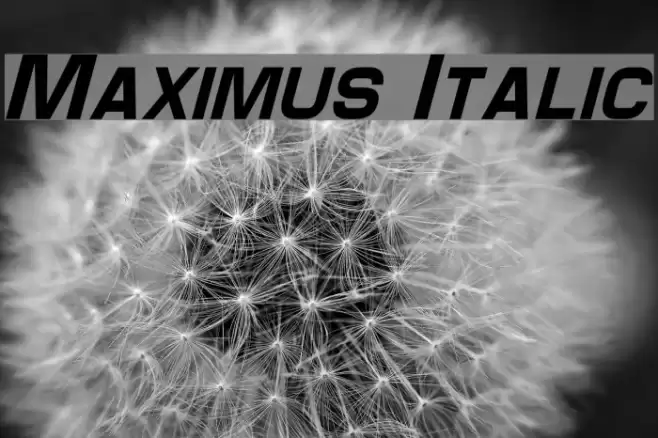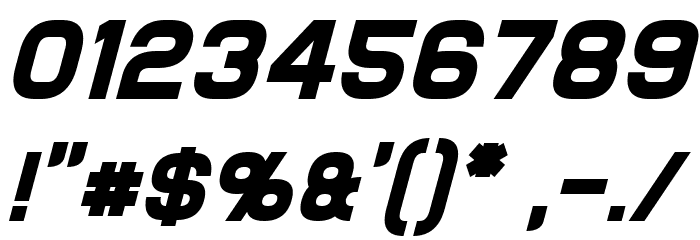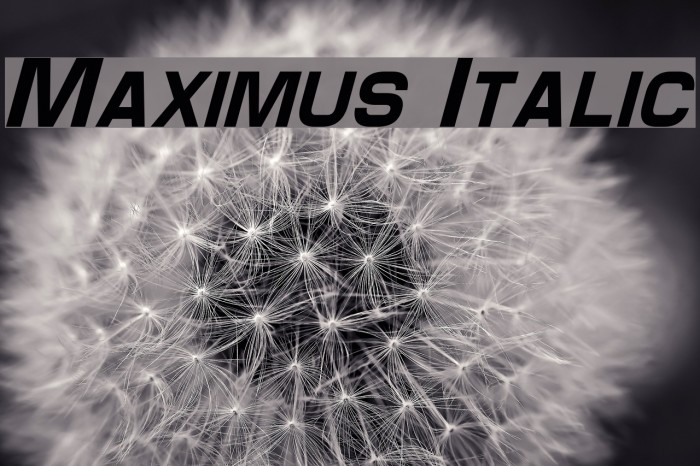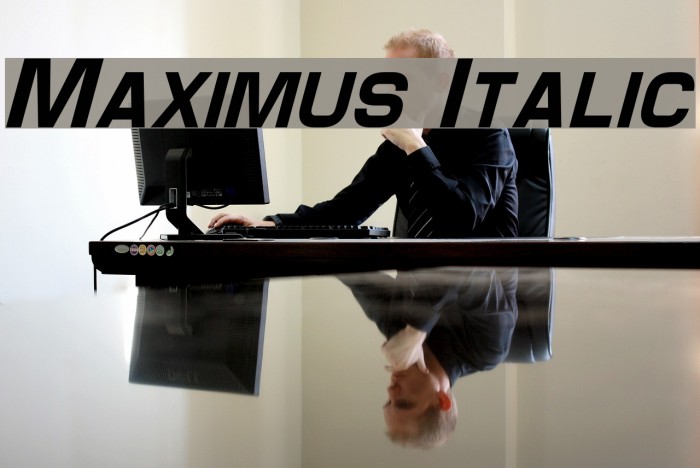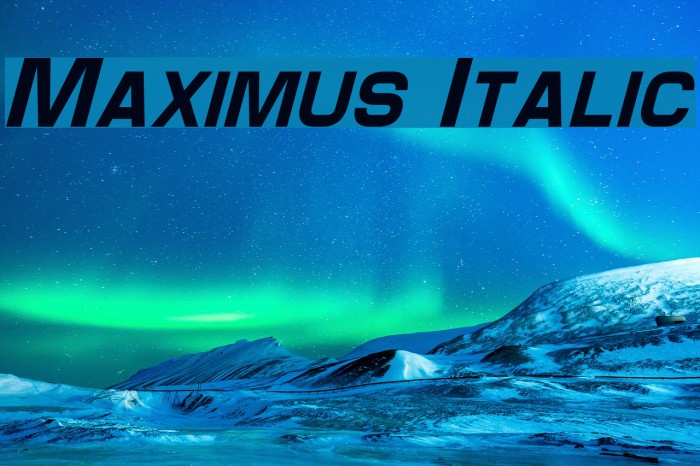
Maximus Italic
This font exhibits a bold and dynamic style with a strong italic slant, giving it a sense of motion and urgency. The characters are well-defined with a consistent stroke width, contributing to a clean and modern appearance. The uppercase and lowercase letters maintain a uniform height, enhancing readability. The numerals are distinct and align well with the overall design, while the special characters are crafted to match the bold aesthetic. This font's design is suitable for making impactful statements and capturing attention.
A bold, italic font with a modern and dynamic style.
- Proposed Projects: Ideal for sports branding, dynamic posters, modern advertising, and impactful headlines.
- Use Case: Headlines, Logos, Advertising